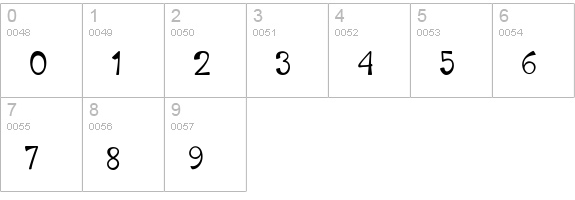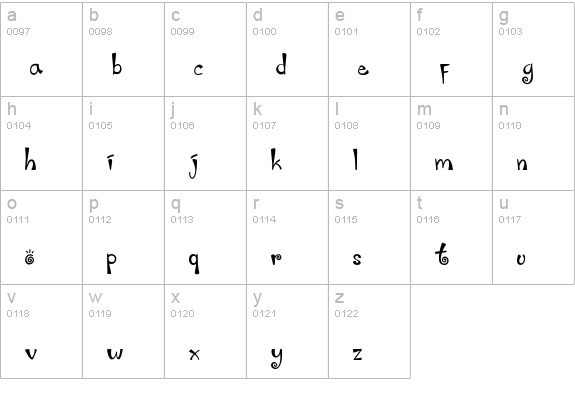
Font Curly Font Details
Font Curly is a free for personal use font in the Fancy > Curly category, designed by Rabas Design. It has been downloaded 87 times and is available for Windows, Mac and Linux.
Introducing Font Curly - a whimsical and playful font that will add a touch of charm to your designs. With its curly and flowing letterforms, this font is perfect for projects that require a fun and lighthearted feel. Whether you're creating invitations, greeting cards, or social media graphics, Font Curly is sure to make your text stand out.